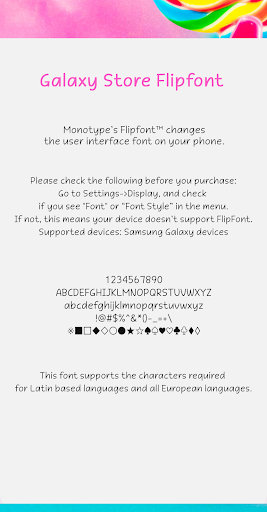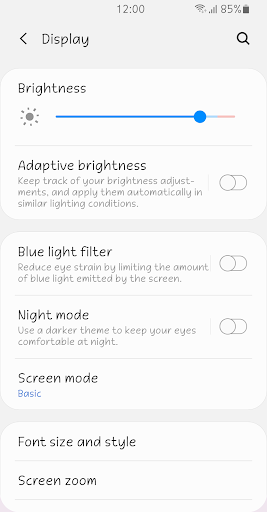
ZFholymoly™ Latin Flipfont
ZF Holymoly
It is a handwriting-style font written comfortably at a consistent thickness.
The friendliness and comfortable structure of the handwriting creates a pleasant impression.